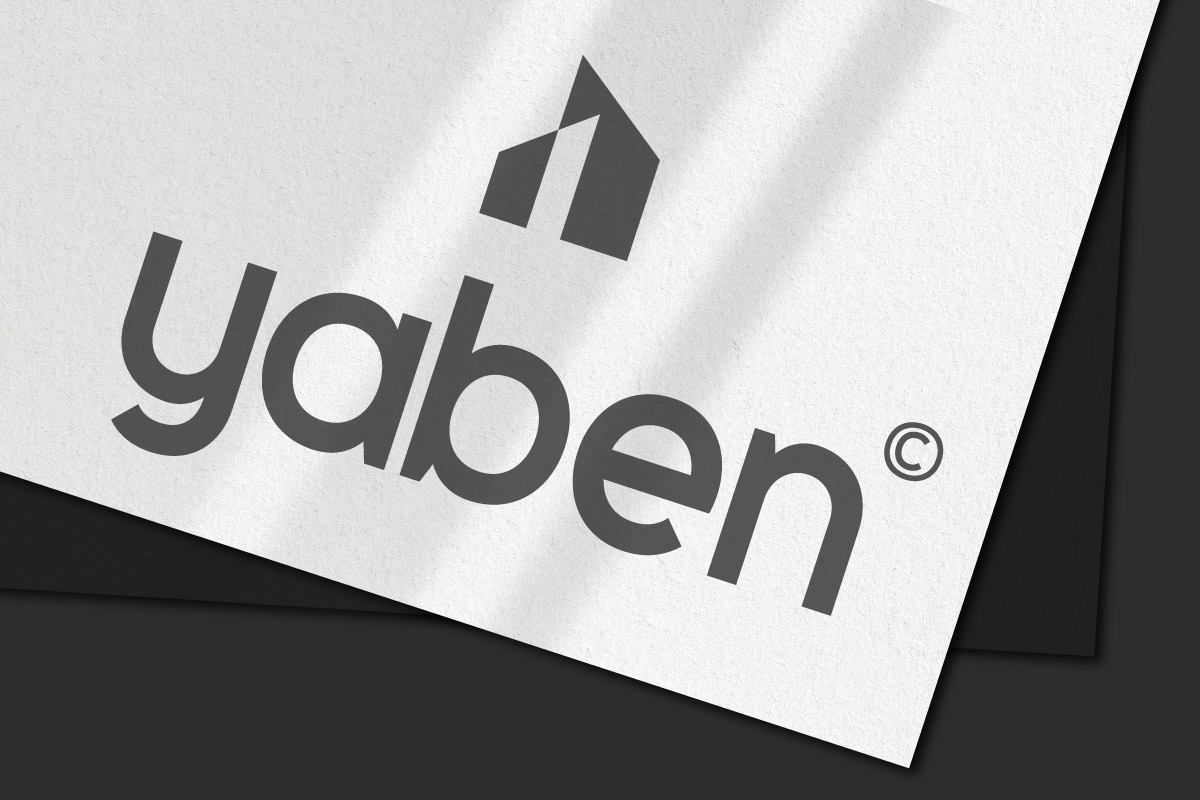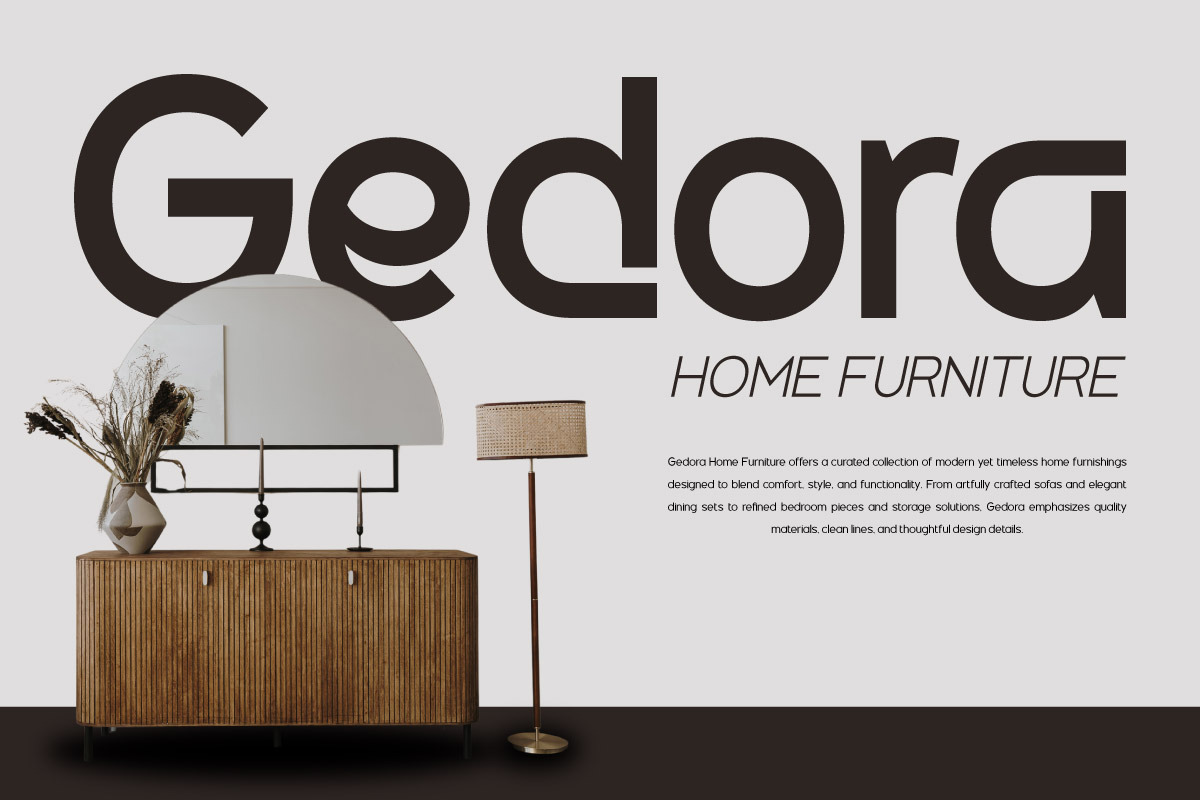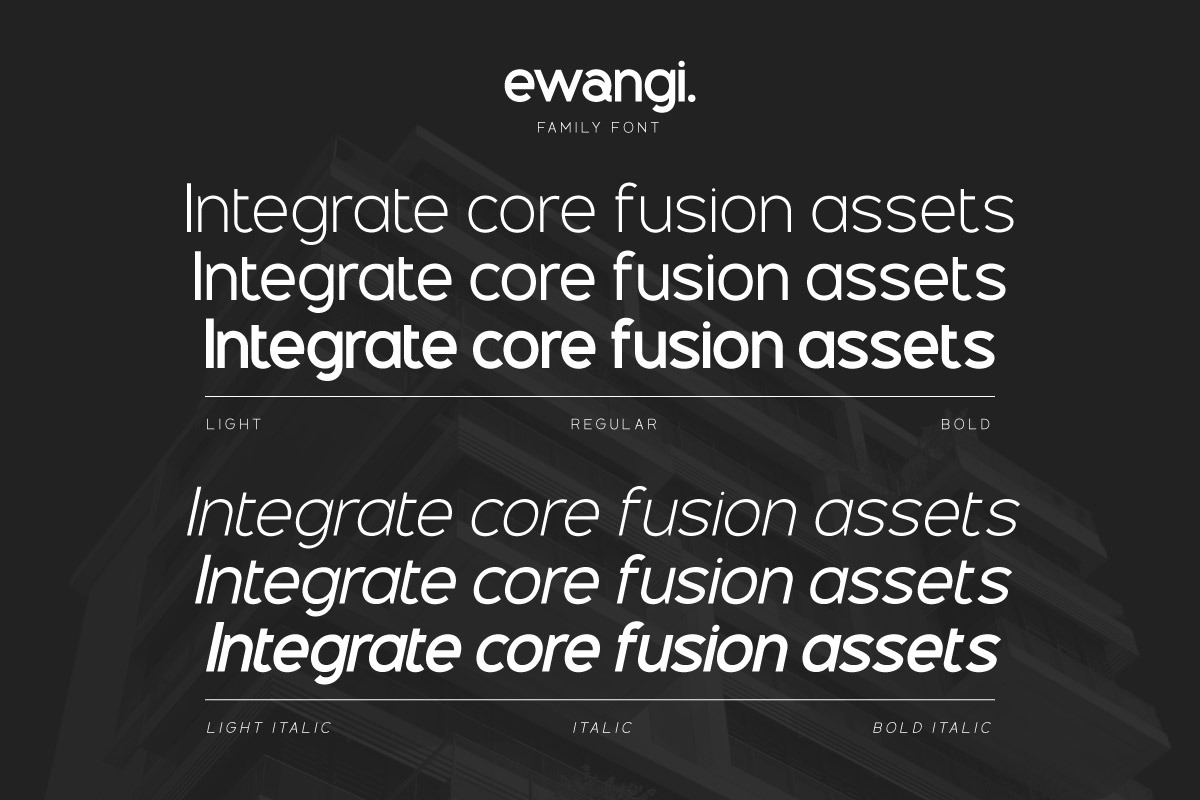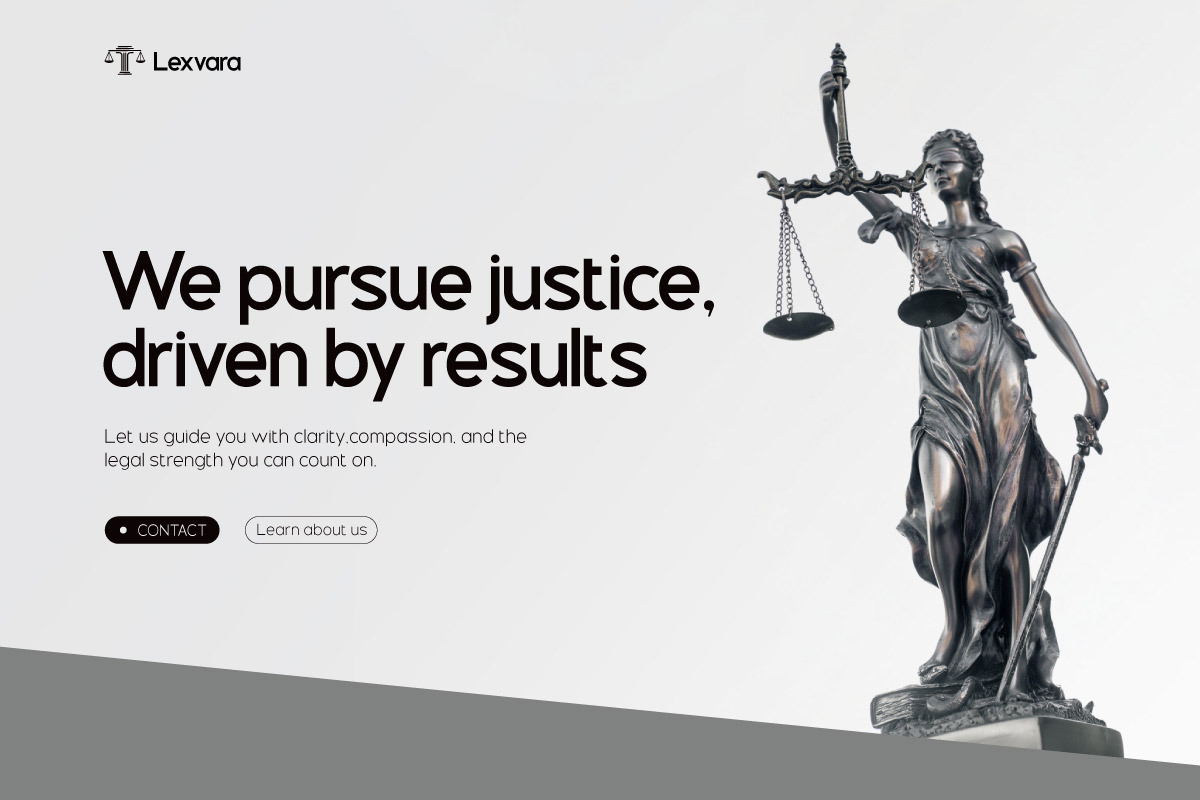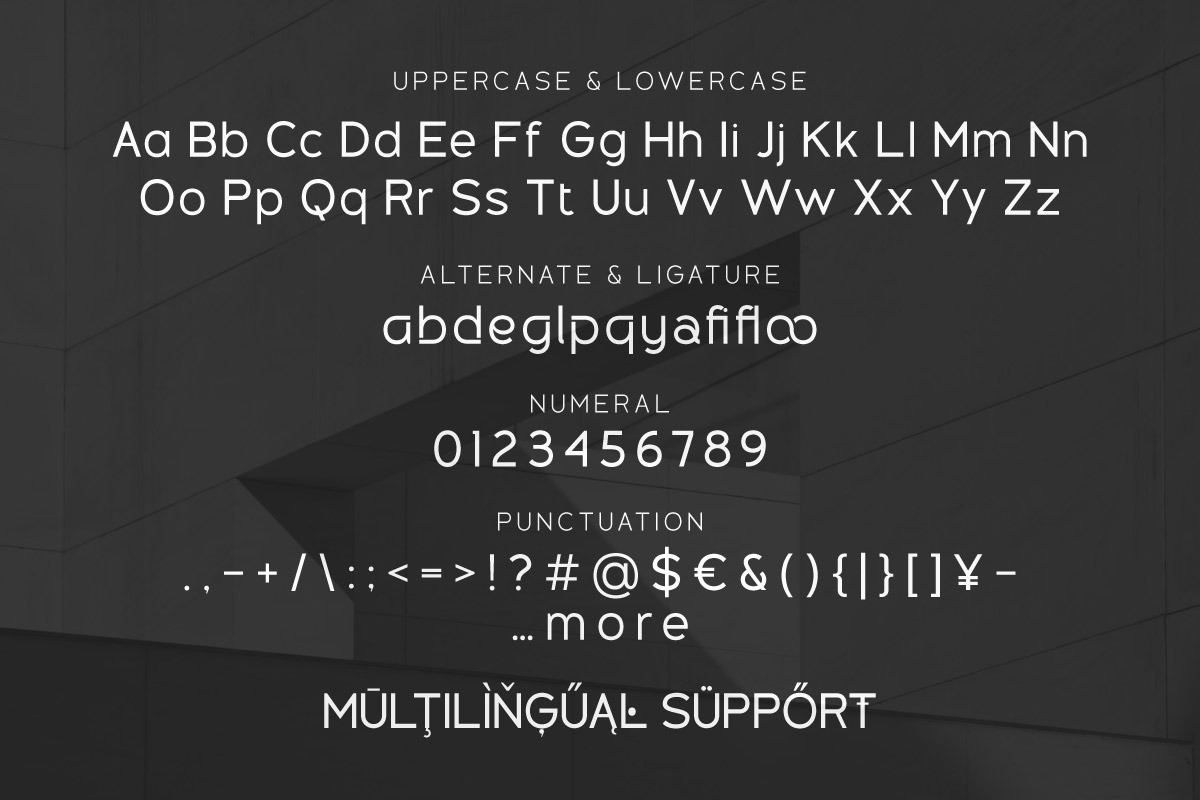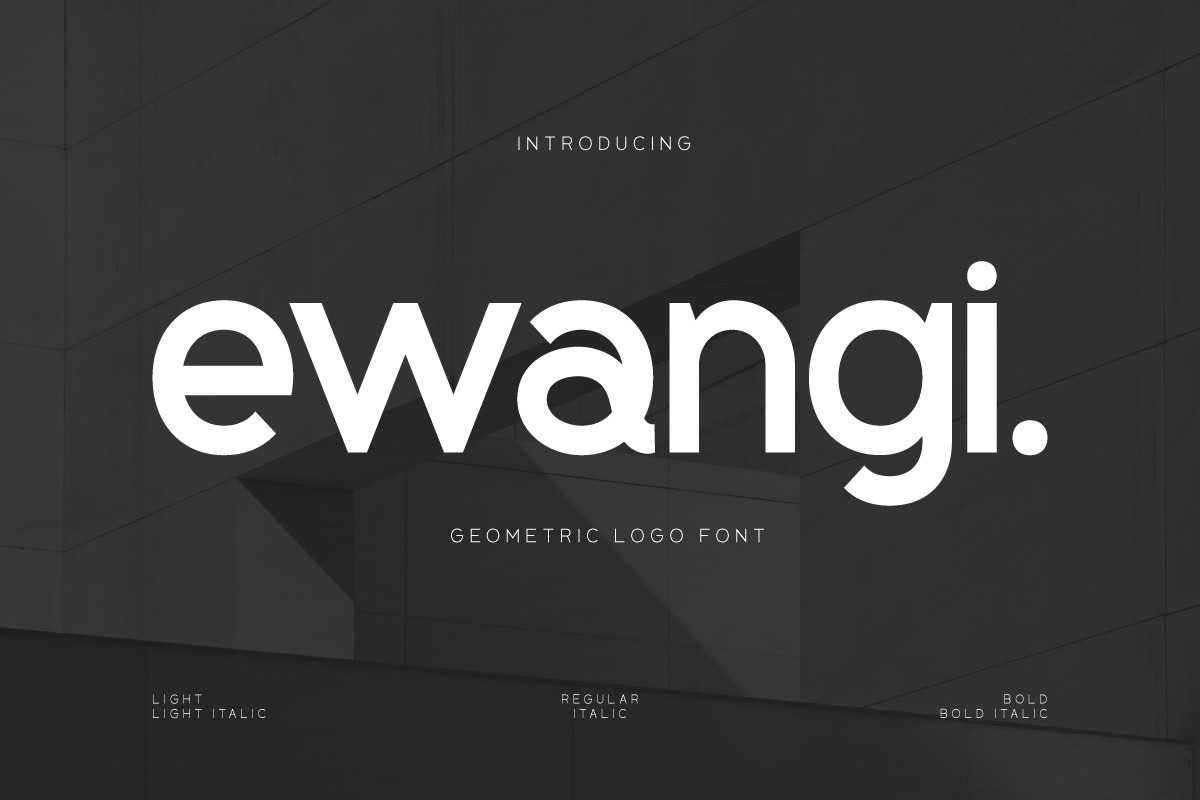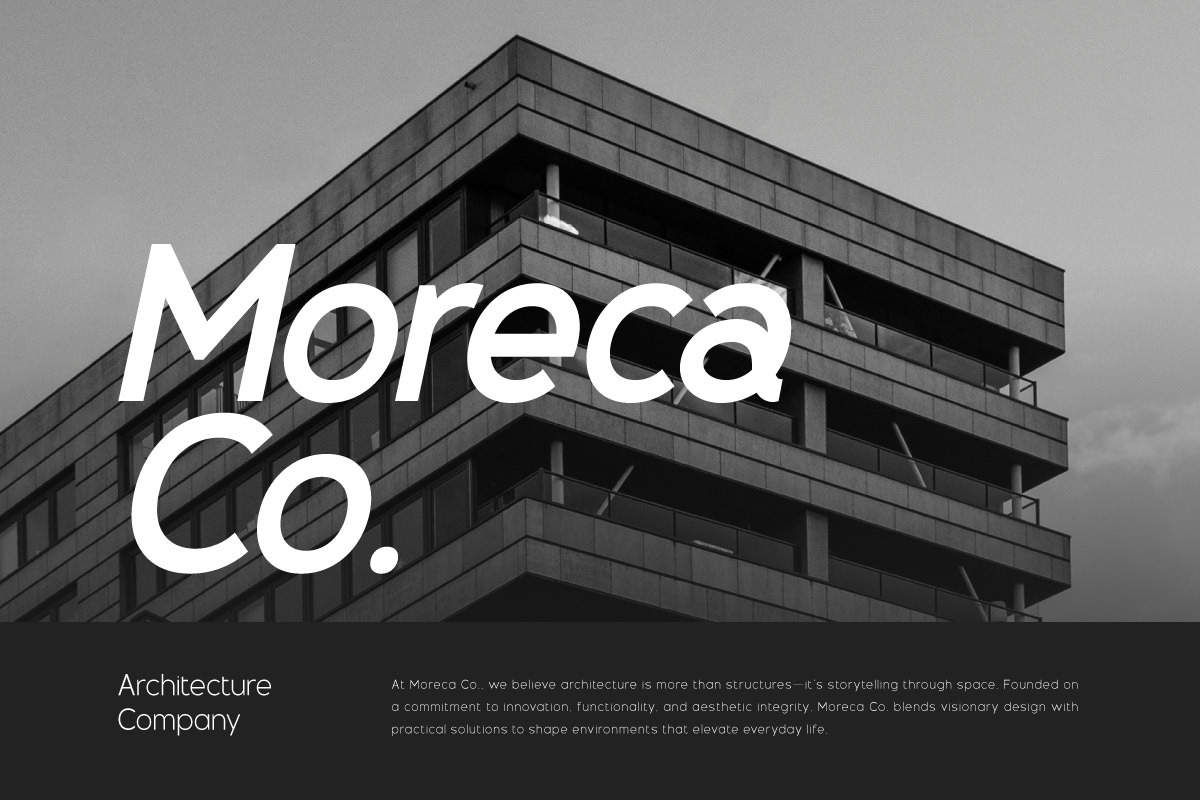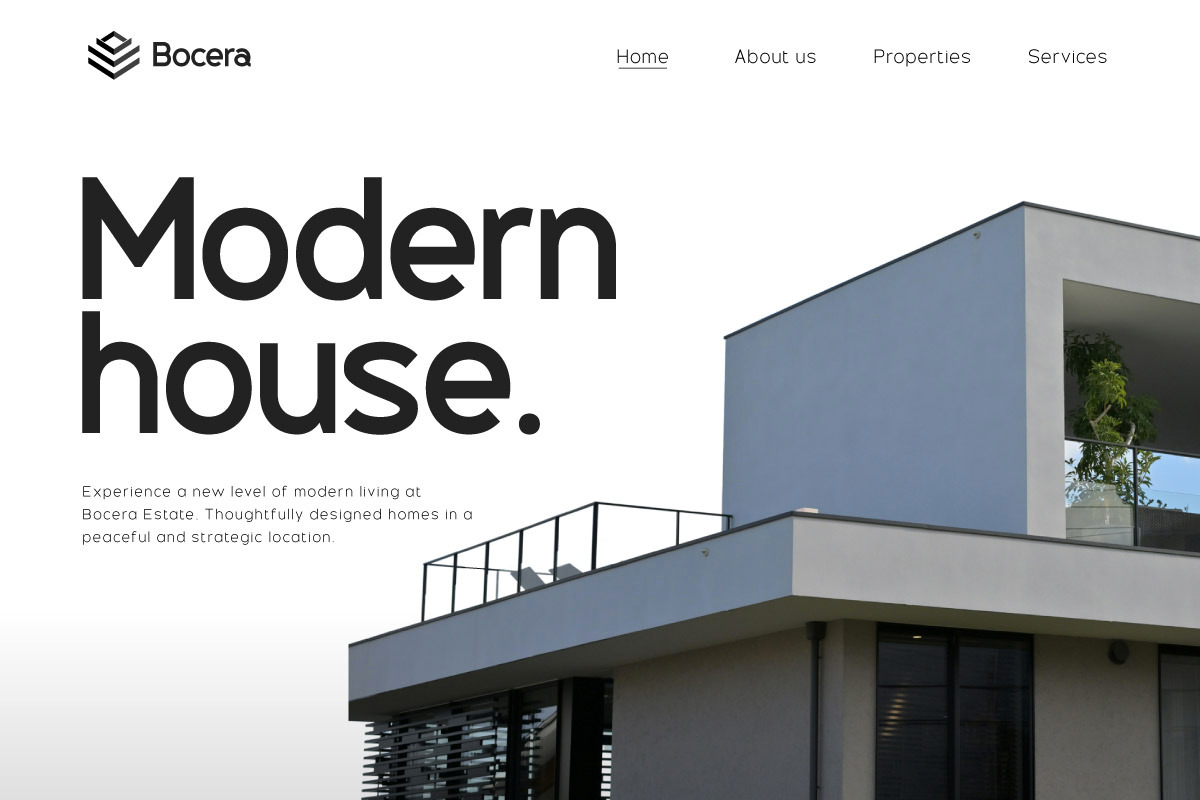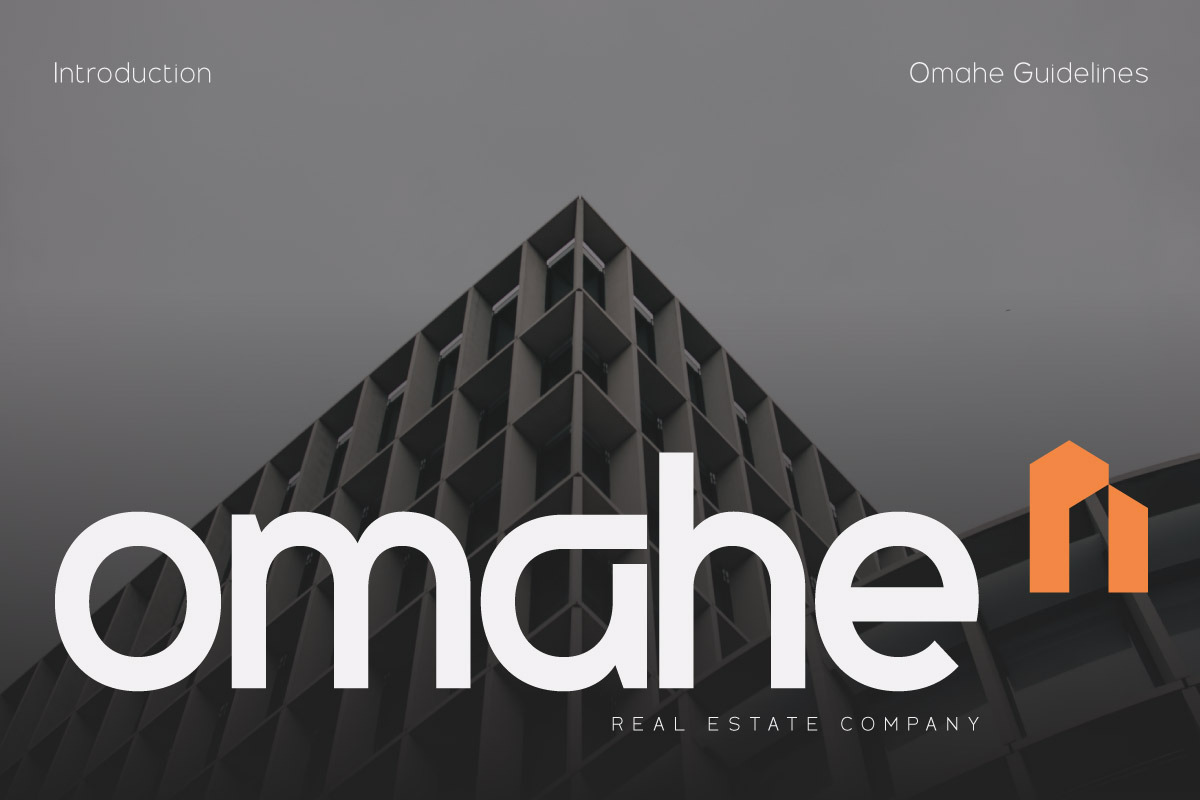
Ewangi - Corporate Font
Ewangi is a clean and elegant corporate font designed to communicate professionalism, clarity, and modern sophistication. Featuring balanced proportions, smooth curves, and sharp edges, Ewangi is ideal for branding, business presentations, technology startups, corporate websites, and editorial layouts.
This font brings a refined sense of structure and readability, making it perfect for everything from logos and headlines to body text in professional documents. Ewangi blends minimalist aesthetics with a strong presence—ensuring your message is clear, confident, and visually polished.
If you're building a brand that values trust, innovation, and style, Ewangi provides the typographic foundation to express it effectively.